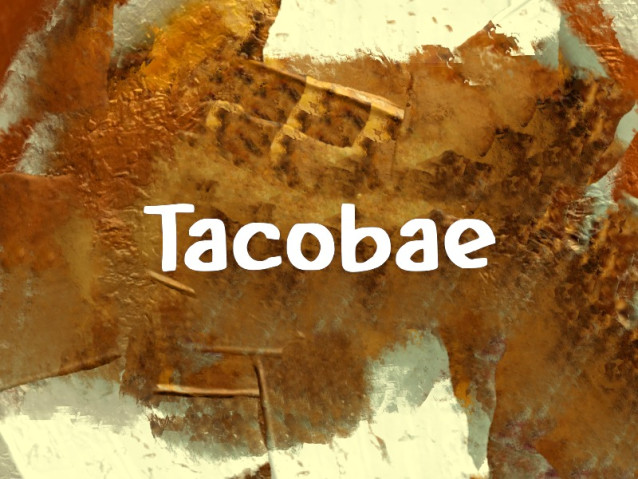
Tacobae Font
Tacobae Font is a simple and modern display font suitable for quotes, logos, headings, titles, and many more. Use it on any of your creative projects, and your designs will become outstanding!